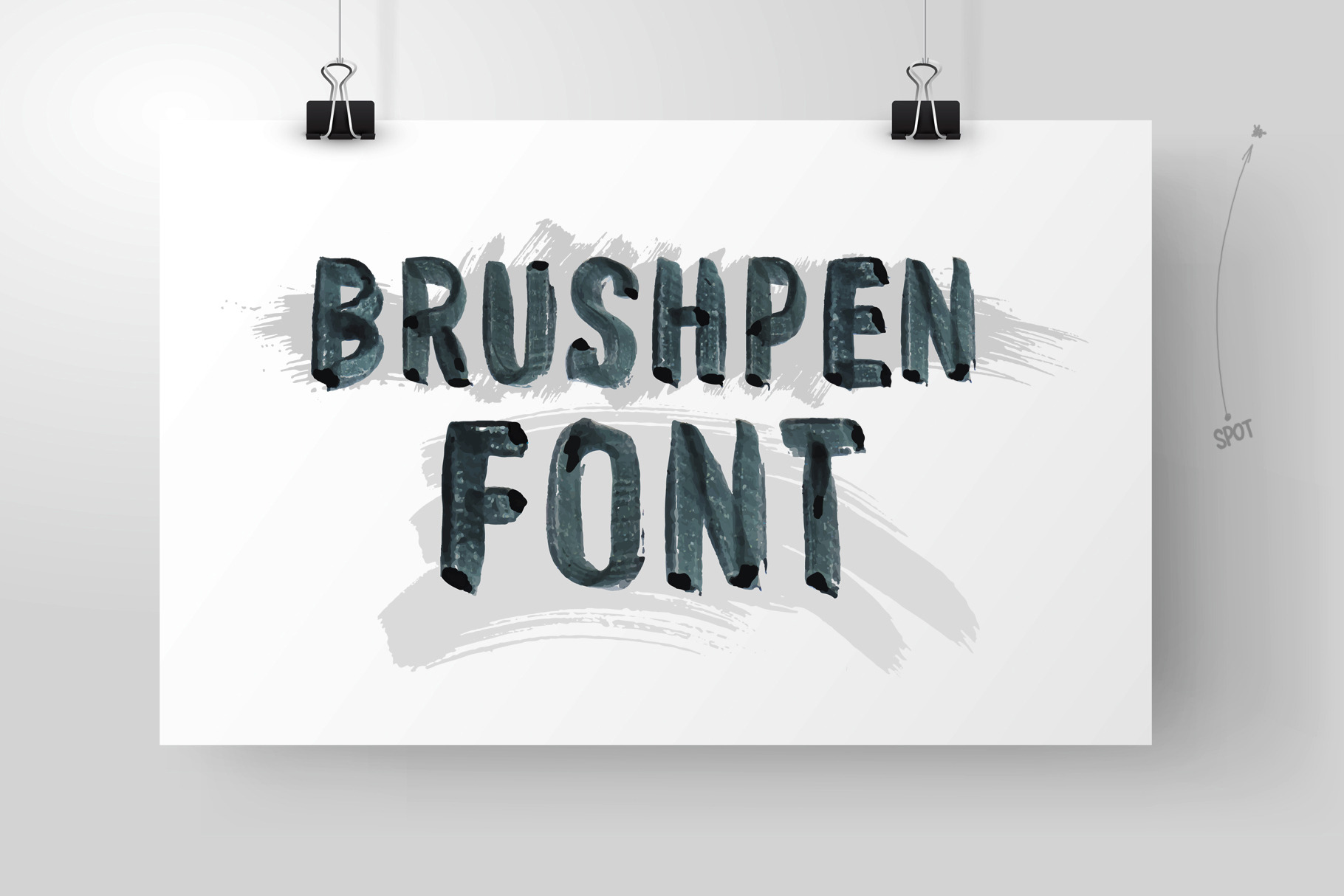
Brushpen Font
Handwritten black watercolor alphabet with numbers and symbols. Drawn with a brush. Vector illustration. Isolated on transparent background